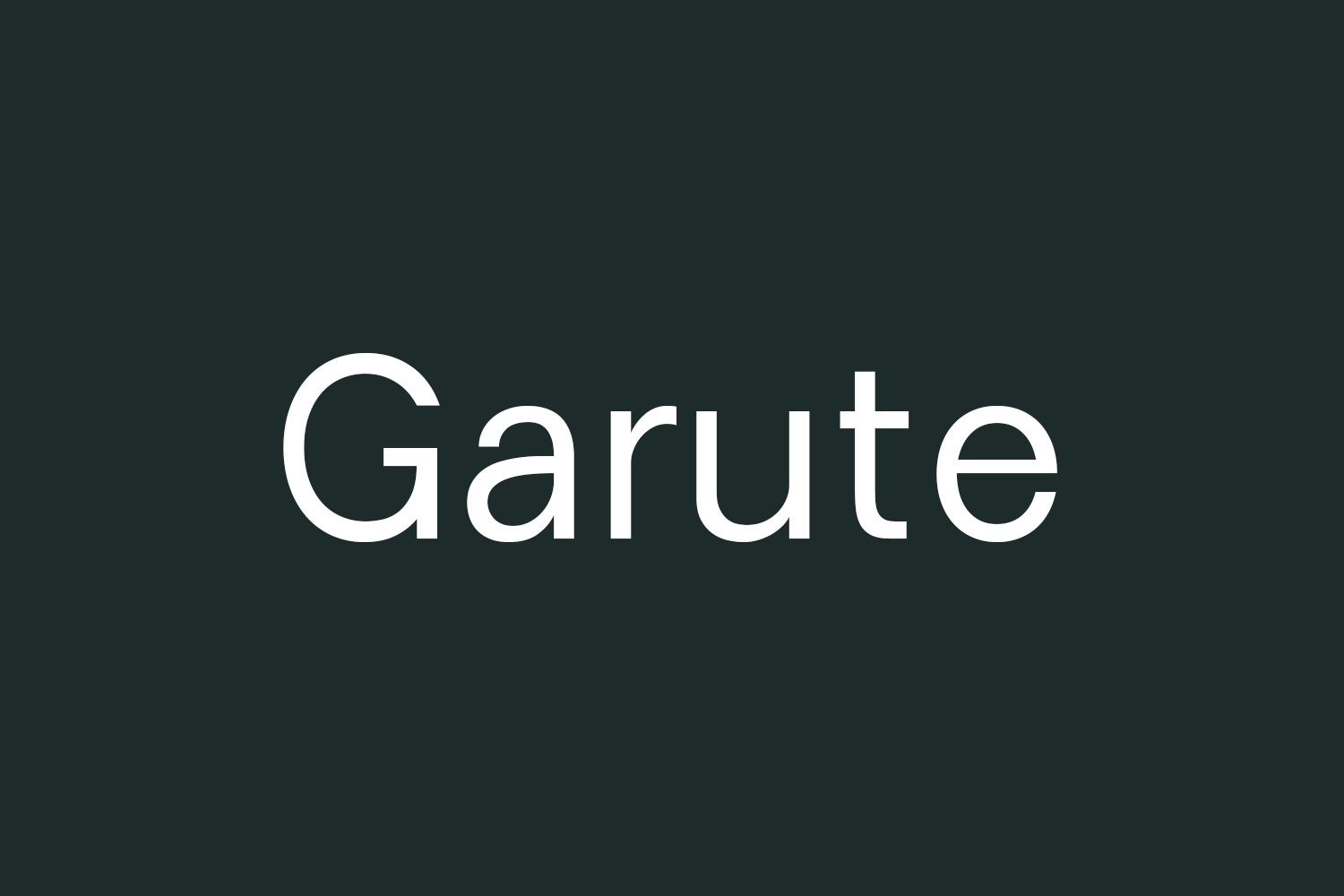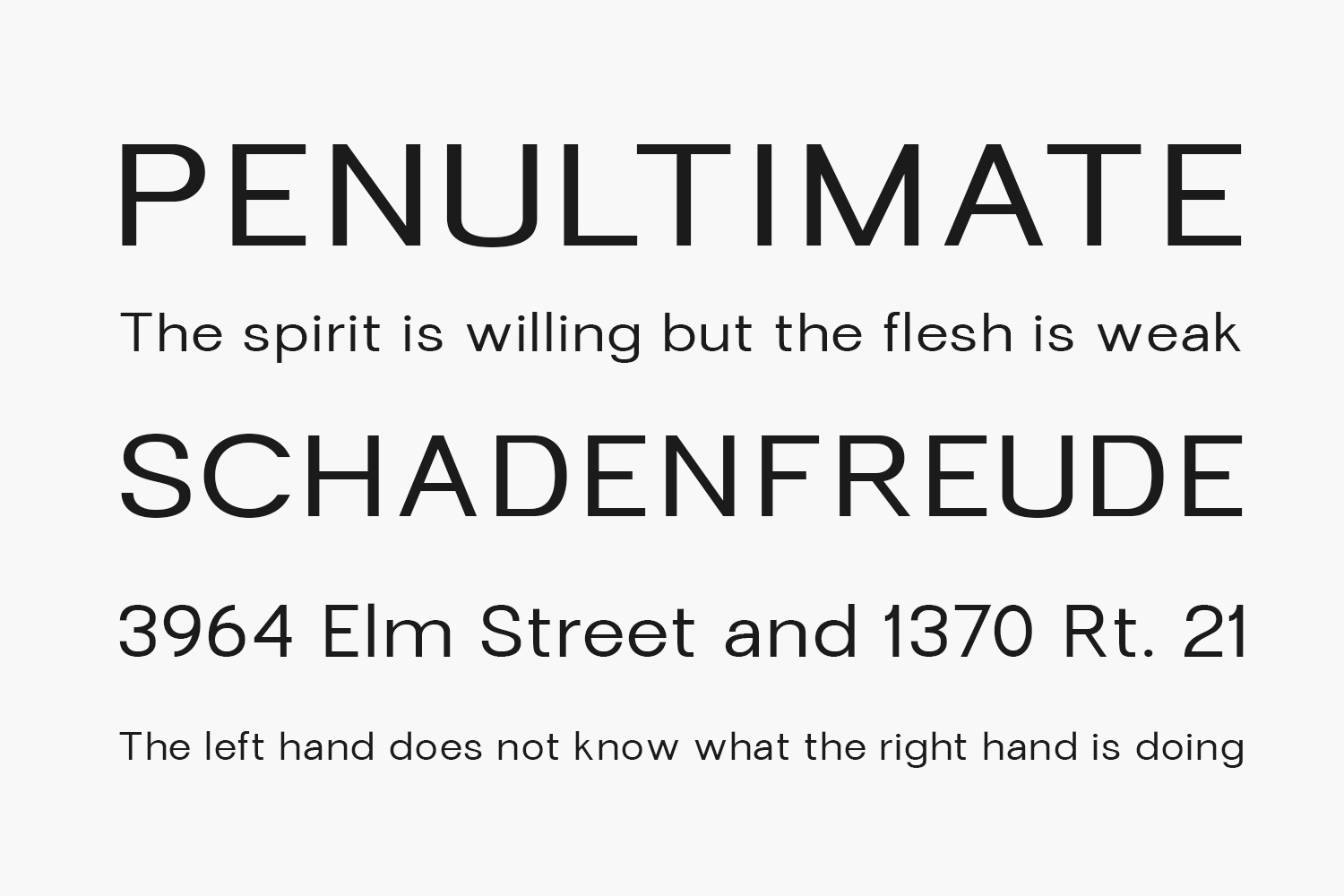
Garute Free Font Family is a sleek and modern sans-serif typeface that exudes simplicity and versatility. With its clean lines and minimalistic design, this font is perfect for creating professional and sophisticated designs for both digital and print mediums. Whether you’re designing a website, creating a presentation, or crafting a logo, Garute Free Font Family is sure to make a bold and timeless statement.